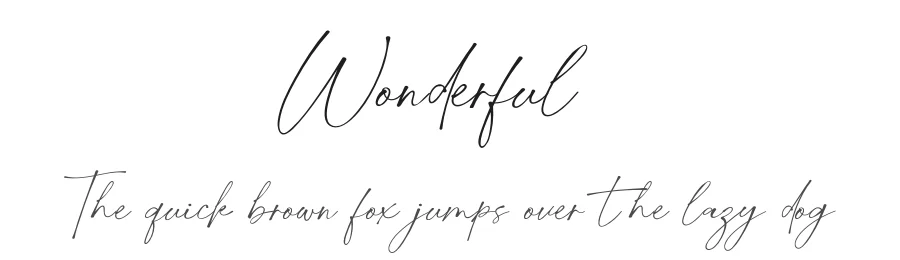
About Forsythia Garden Font
Introducing a new signature typeface, named as Forsythia Garden, a beautiful flower. This font, will nice for logo, title, subtitle, or text, for wedding invitation, t-shirt, mug, flyer, book, flyer, etc.
- Contain 400 glyphs.
- Supported to Latin and Eastern Europe characters
- 71 lowercase alternate characters
- 27 ligatures
Forsythia Garden Specifications
| Designer | Darwin Huayan Harahap |
- Stylistic sets (5)
Forsythia Garden Font is a script font that shines as a display or heading face. Pair it with a clean sans-serif or serif font for body text β the contrast creates a clear hierarchy while the two styles stay balanced and easy to read.
Forsythia Garden Font